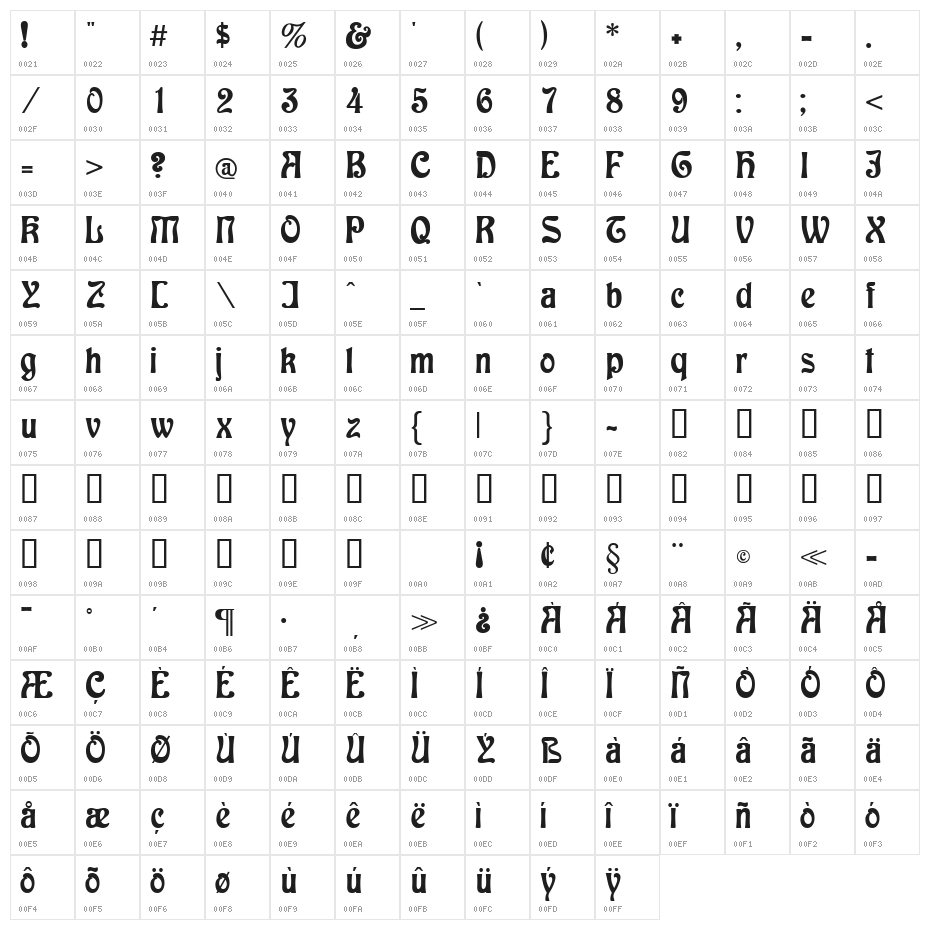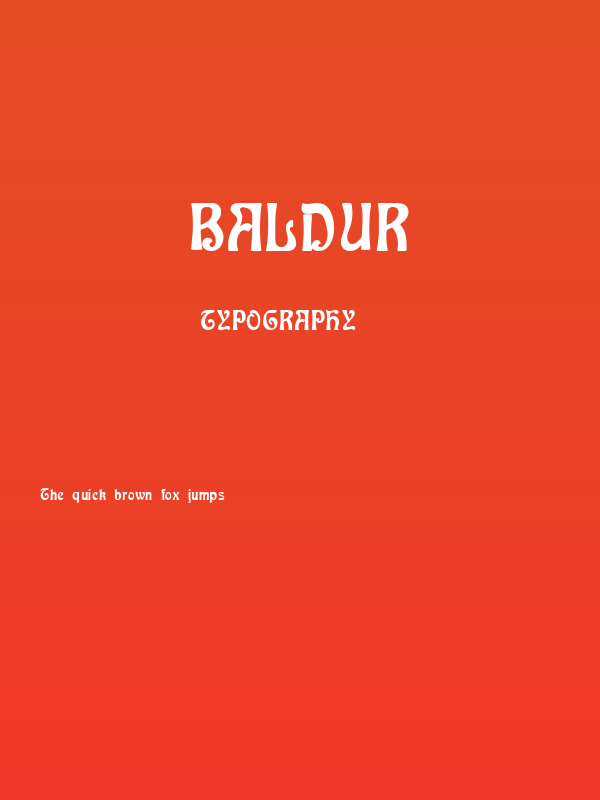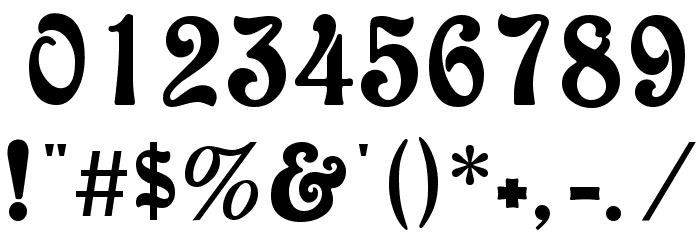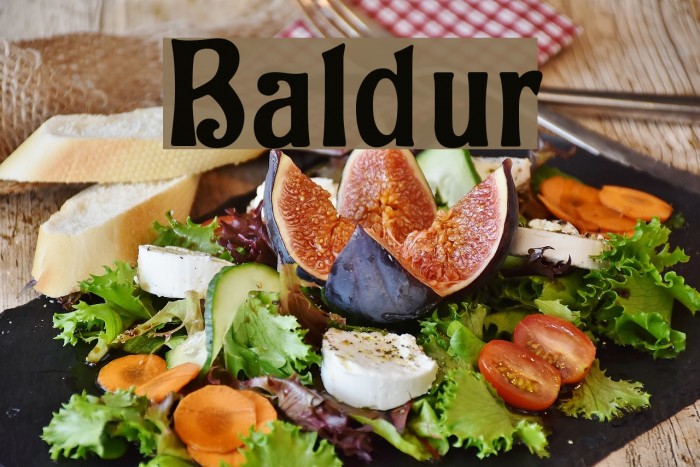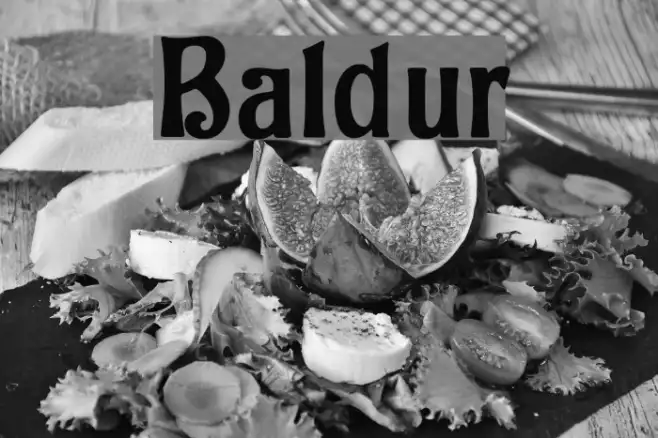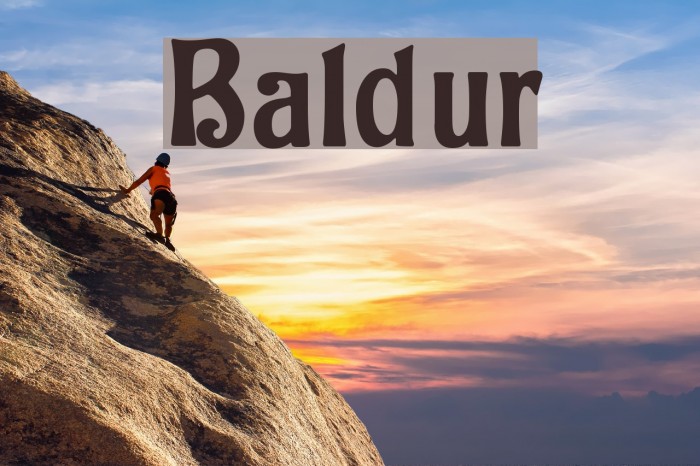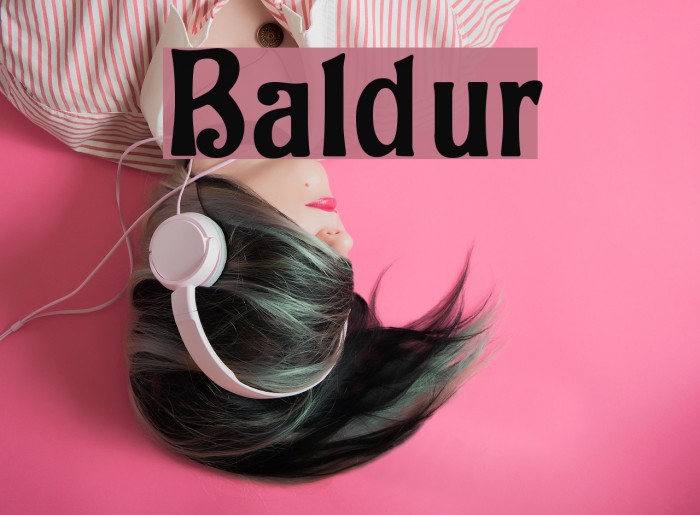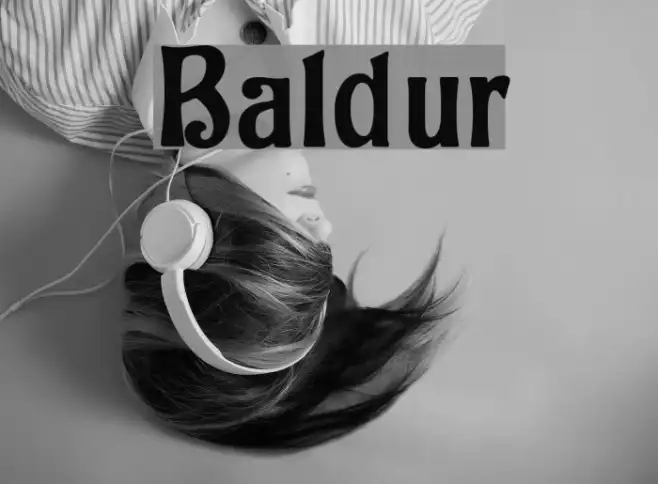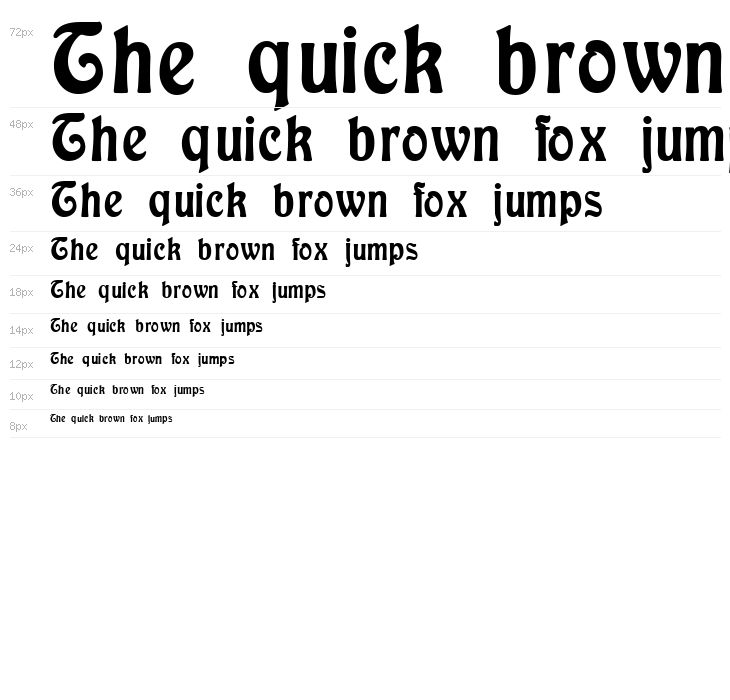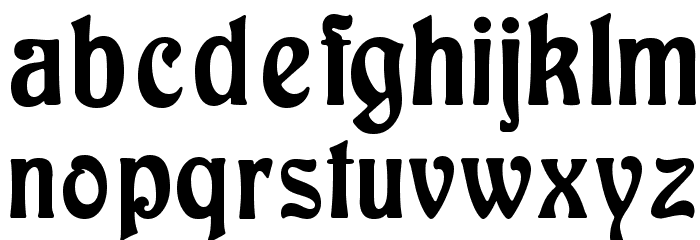
Baldur Font
Baldur Description
This font features a bold and decorative style with a strong presence. The characters are designed with a unique flair, incorporating elements of both traditional and modern aesthetics. The uppercase letters exhibit a playful yet structured form, while the lowercase letters maintain a consistent flow with slight variations in stroke. Numbers are bold and easily legible, complementing the overall design. Special characters are crafted to match the font's distinct style, ensuring a cohesive look across all text elements. The font's boldness and decorative nature make it ideal for eye-catching designs.